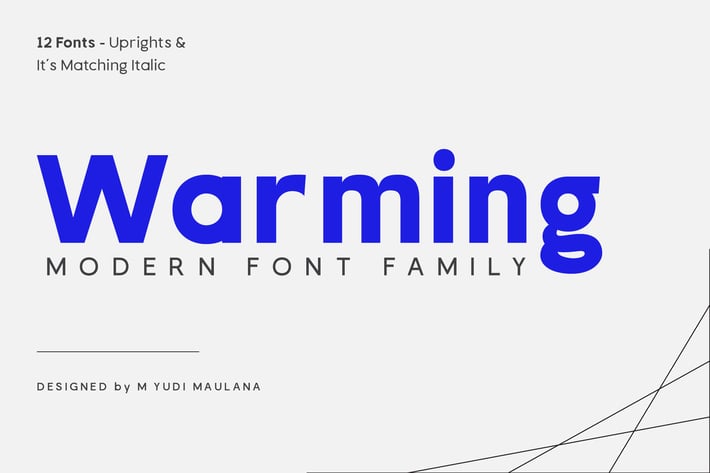
Warming Font Family
Warming font is sans serif font with 350+ Glyphs, this font will adaptable to all product design such as Magazine, Web Design, Print Design, Branding, etc.